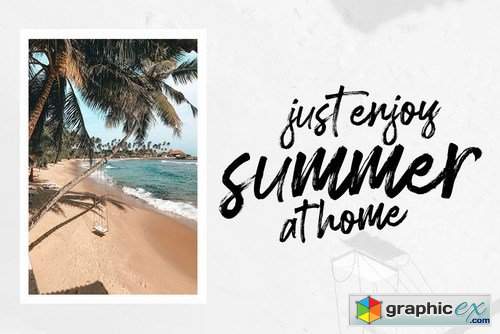
Bonthell
Bonthell is a beautiful textured brush font, a contemporary approach to design, naturally handmade and with a cool underlines. It also has several ligatures and alternatives that make your design more attractive.